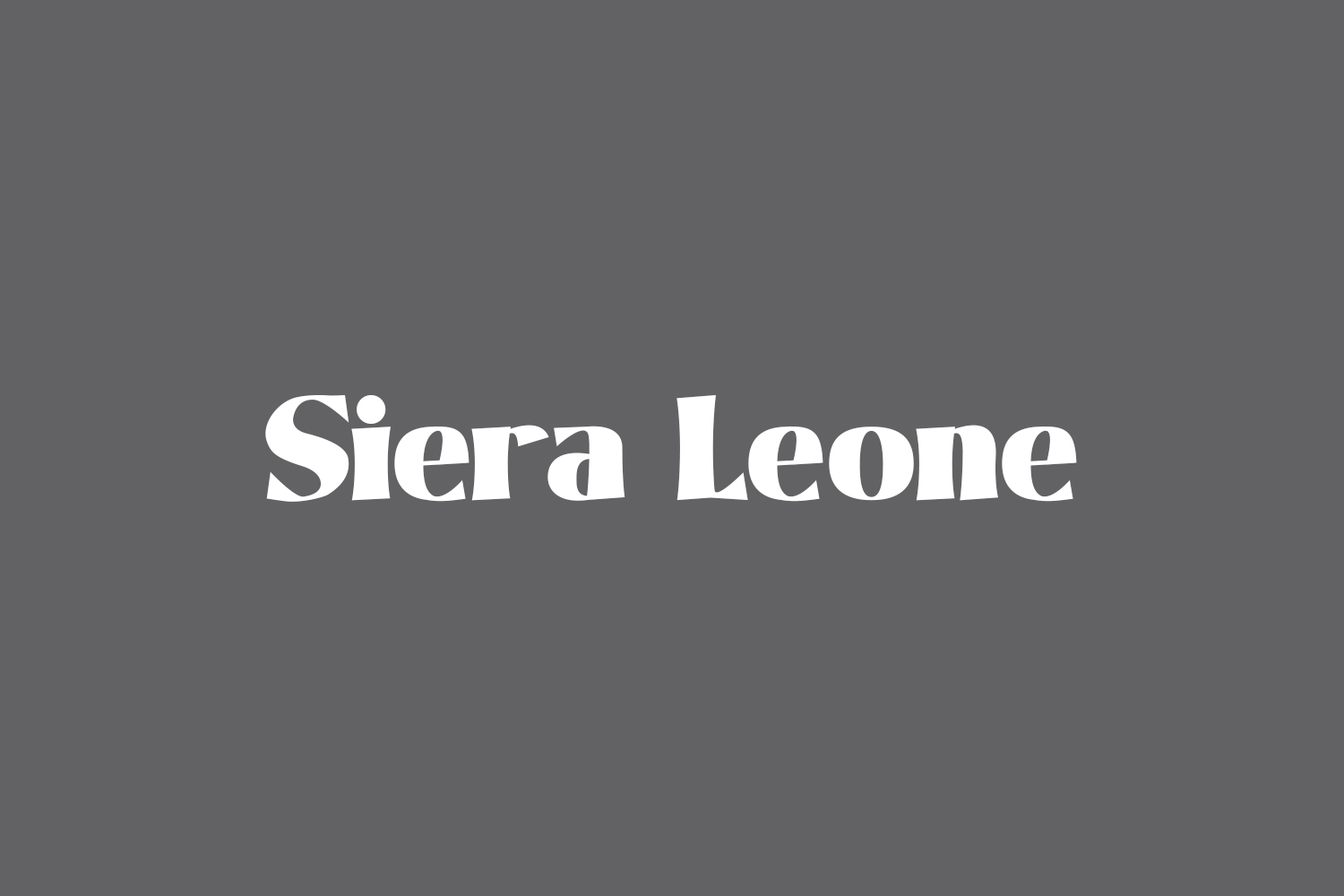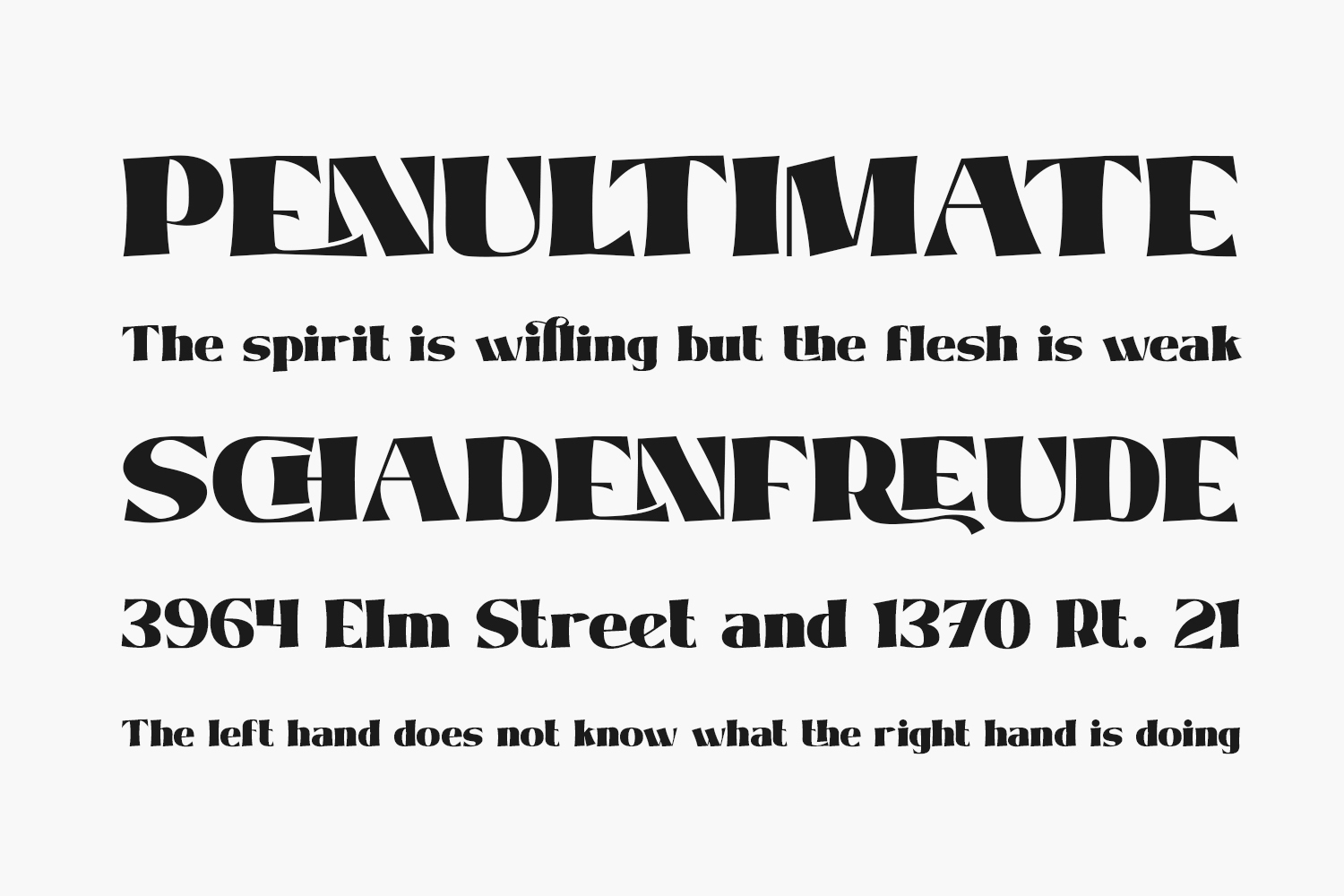
Introducing Siera Leone Free Font, a stunning display font exuding style, boldness, and beauty. Crafted to captivate, this font is poised to become your ultimate favorite, elevating each of your creative concepts to unparalleled heights. Unlock the full potential of your ideas with the irresistible charm of Siera Leone. Download the font for free if you need it for personal use or purchase the full version for commercial use.
Designed by PutraCetol Studio